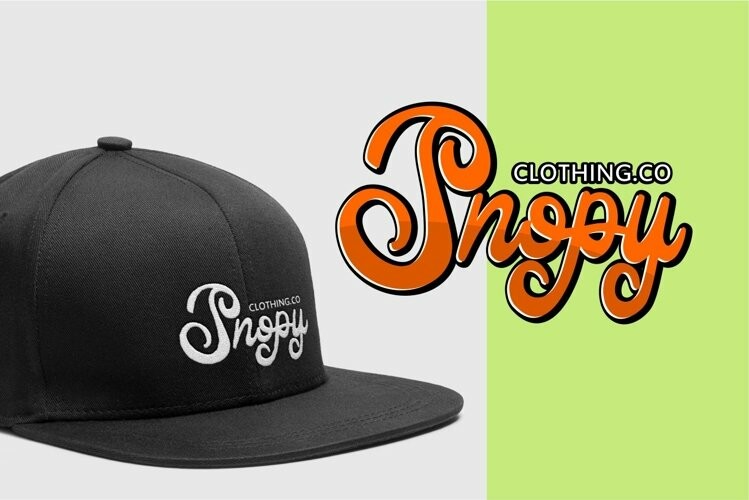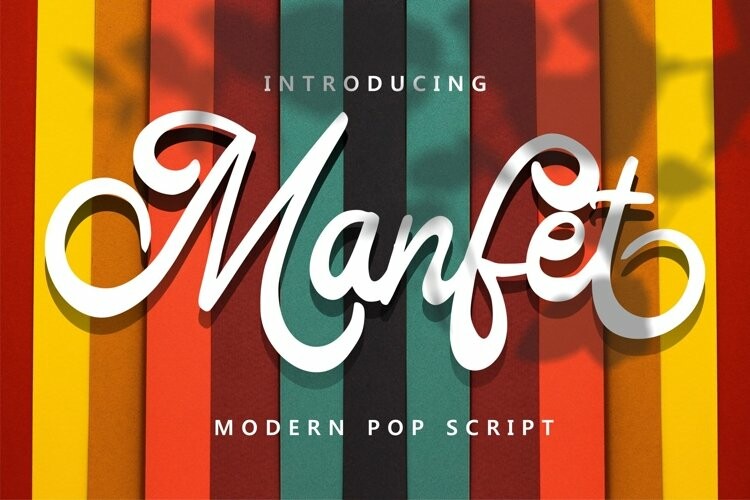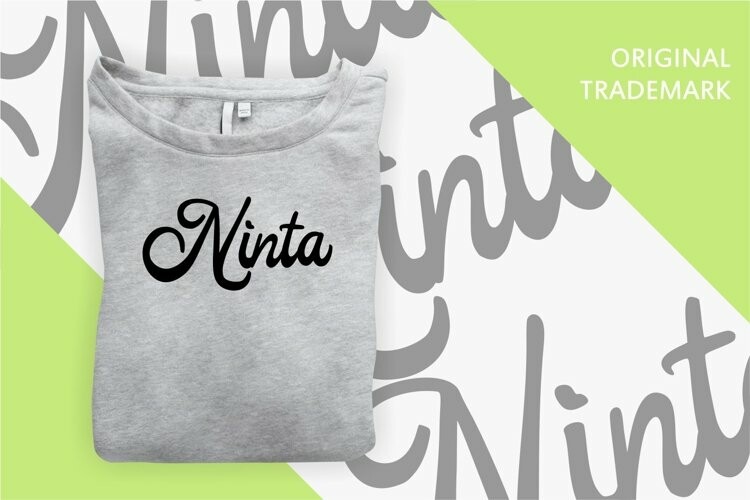
Manfet Font
Manfet FontManfet – Modern Pop Script
So beautiful on invitation like greeting cards, branding materials, business cards, quotes, posters, and more!